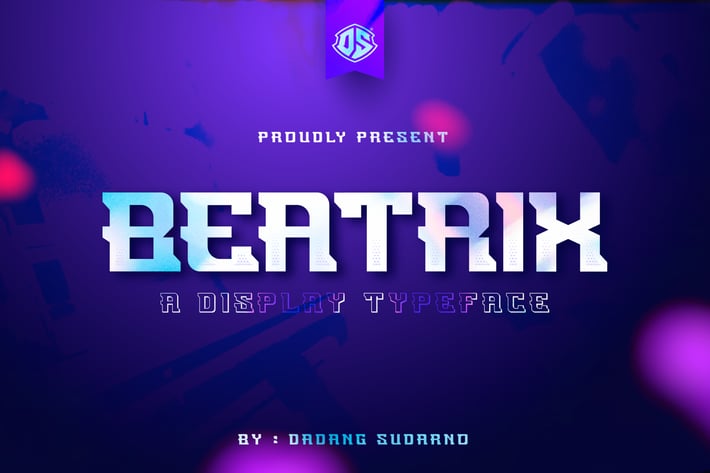
Beatrix - A Display Font
“BEATRIX” is a esports display based typeface which includes 4 variations. It has a strong image that be inspired by esports branding. It was created to be tall and bold. It also has a beautiful spacing between each character. Easy tweaking shape make the headline, banner, title and wordmarks more outstanding when it is used. Suitable for Esport, Sport and Gaming Team logo.